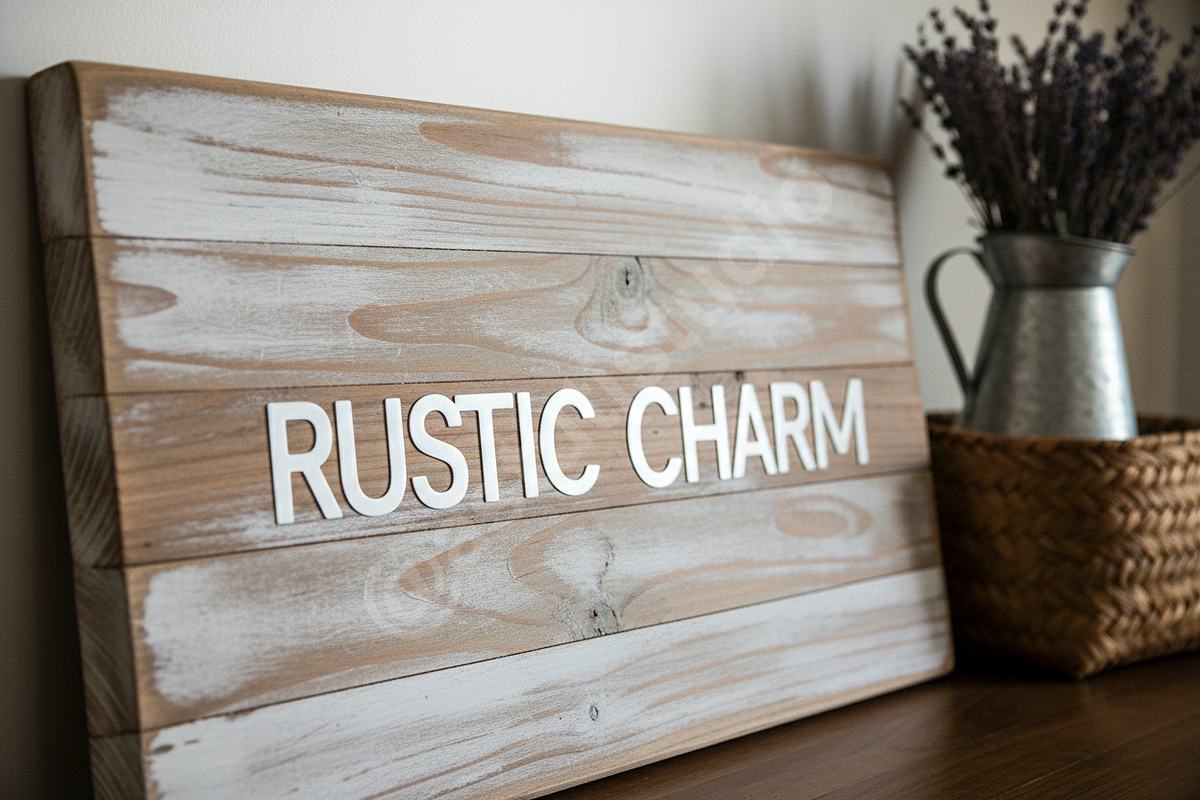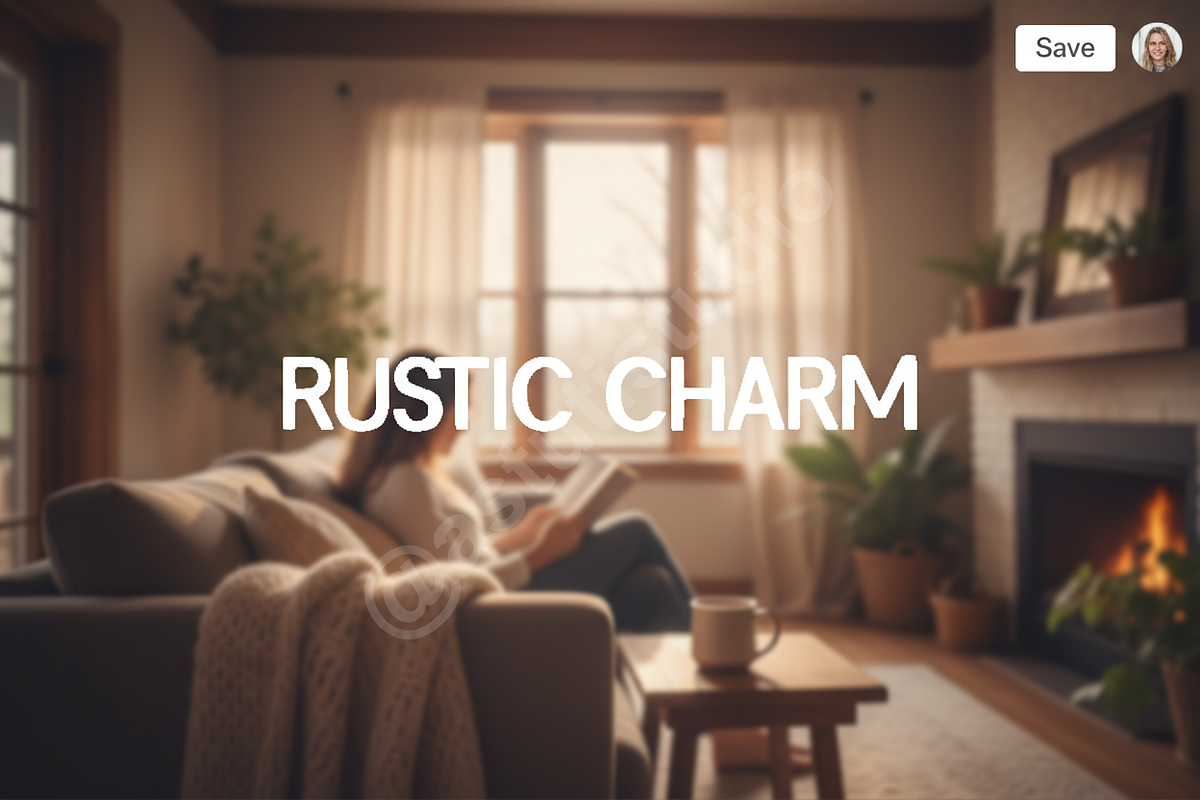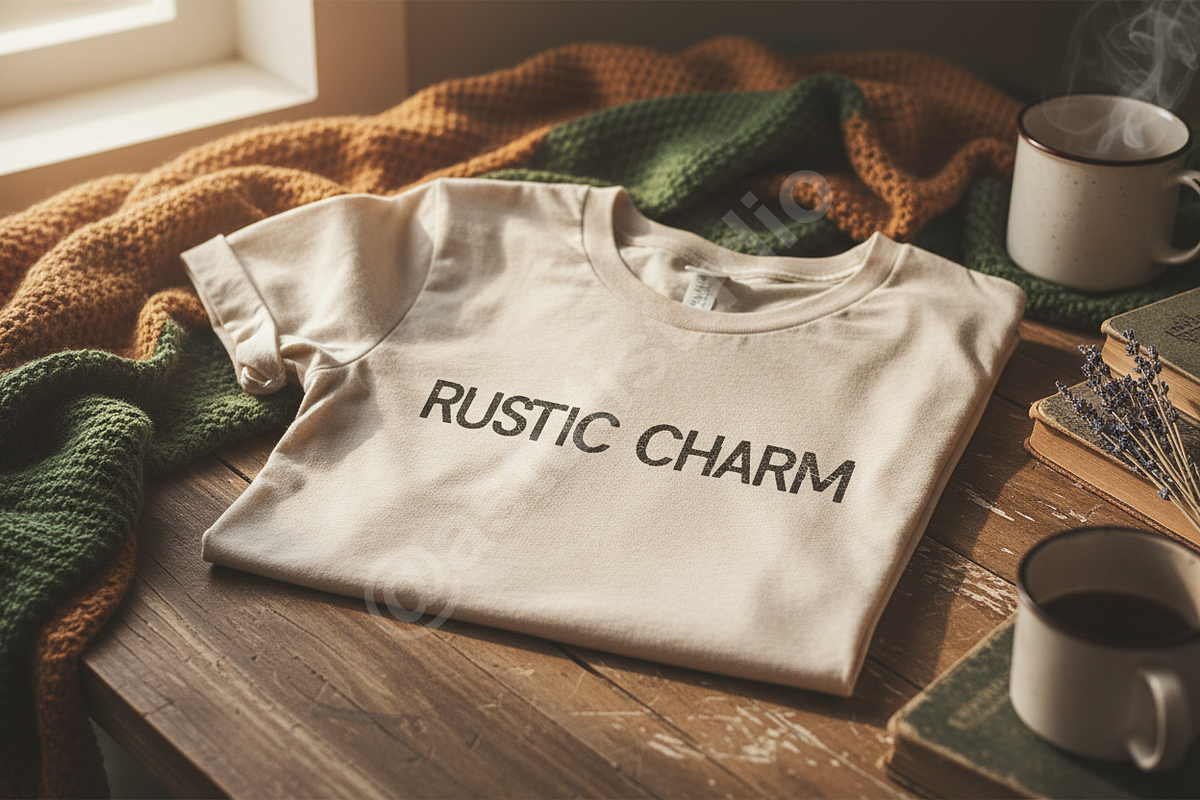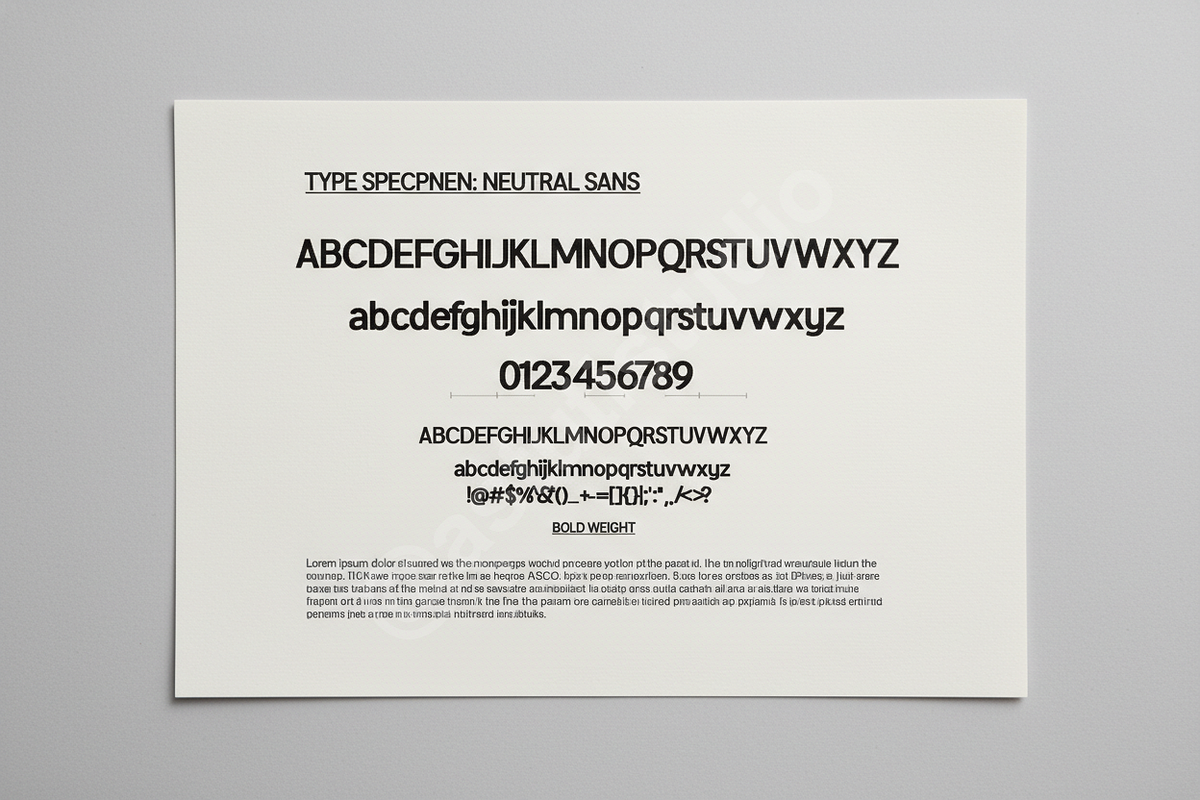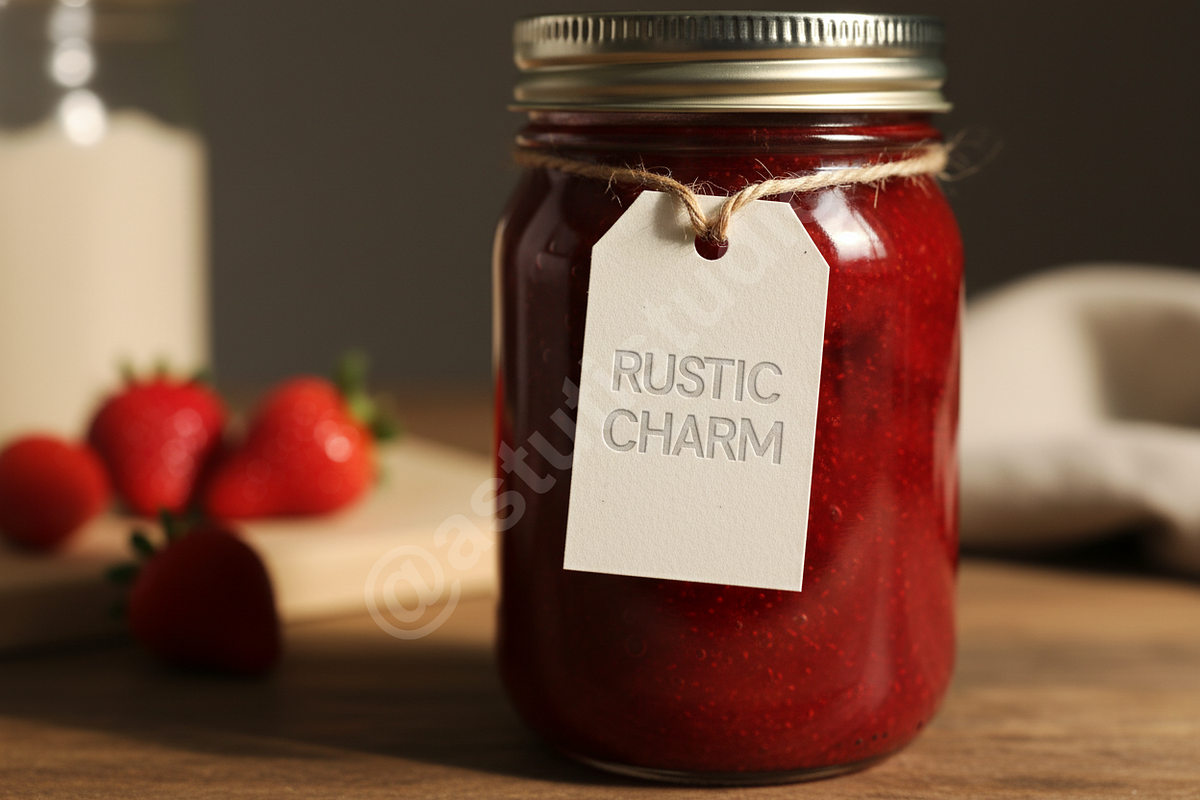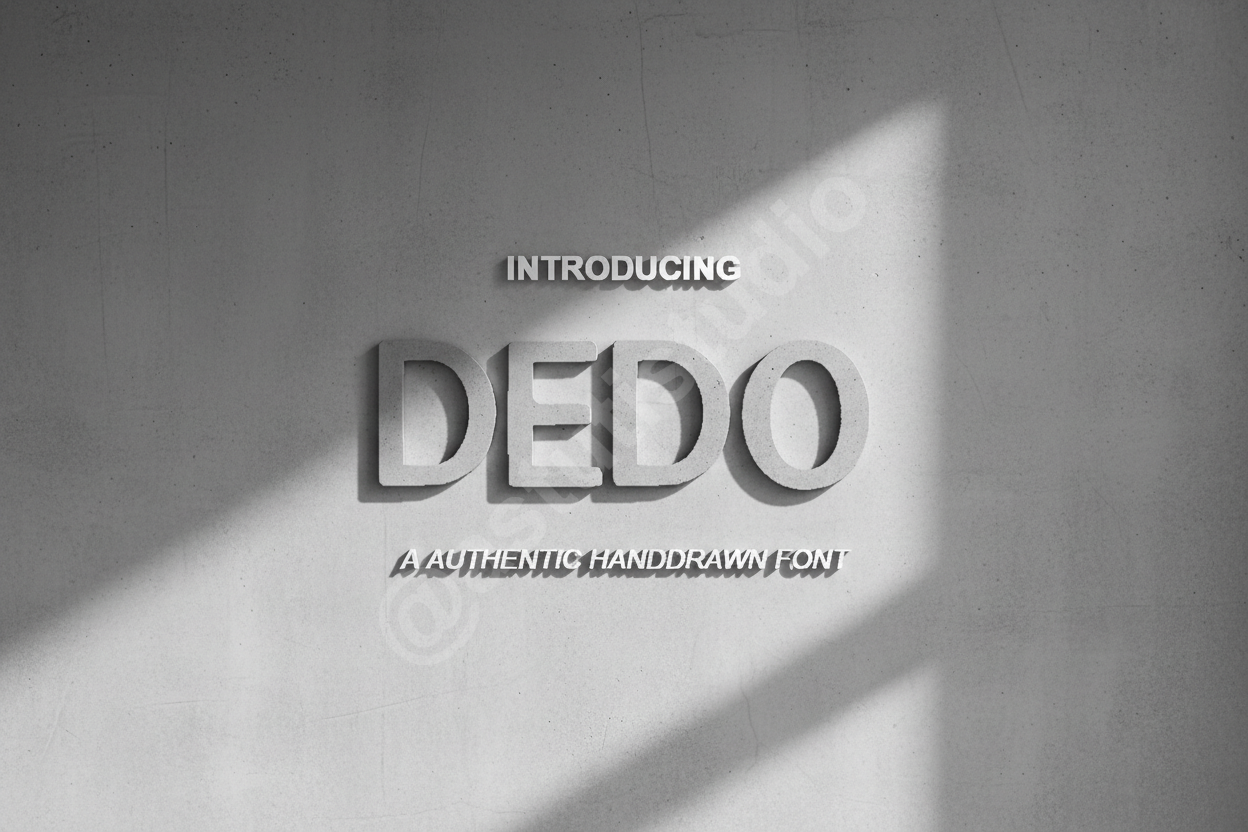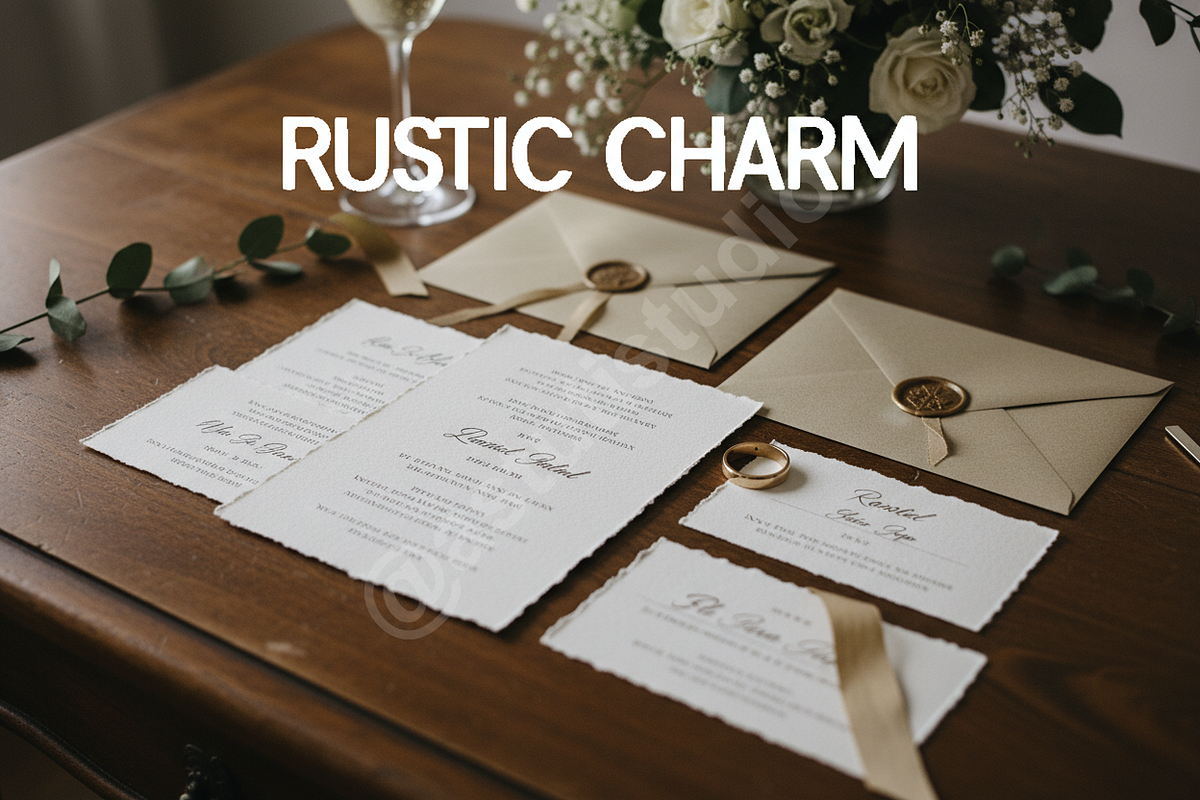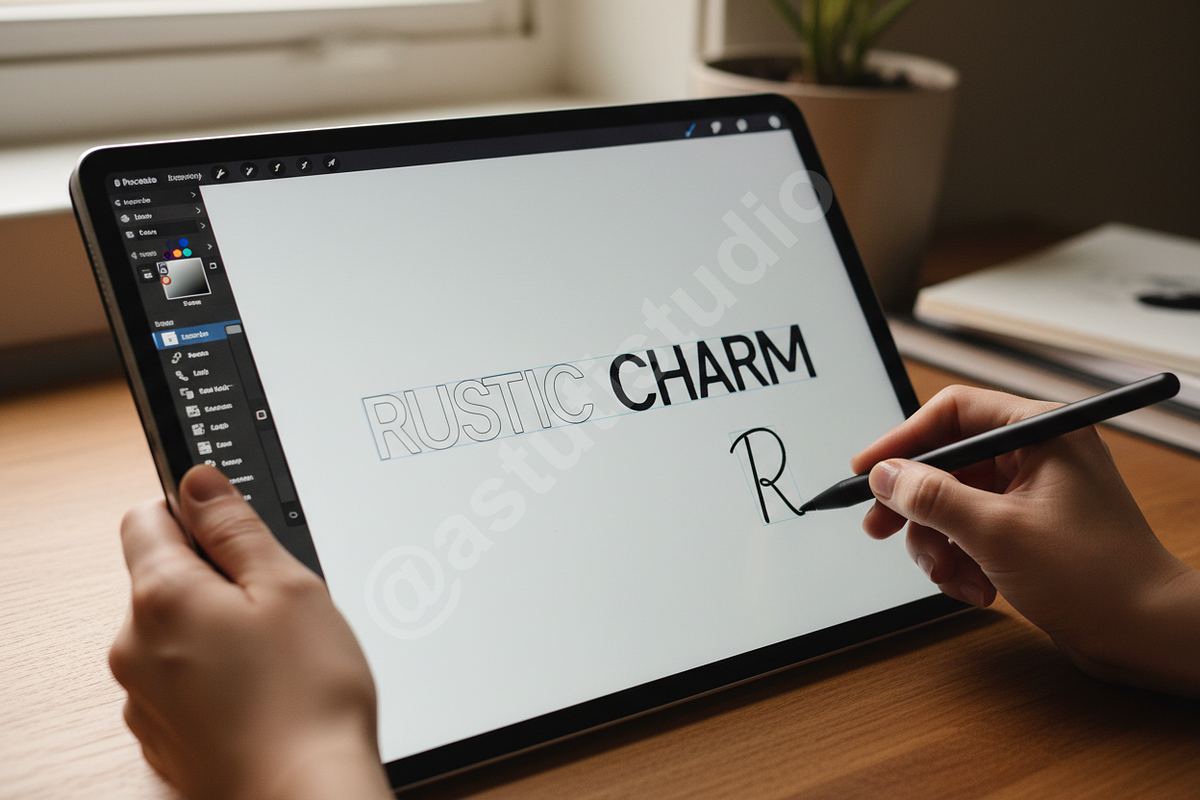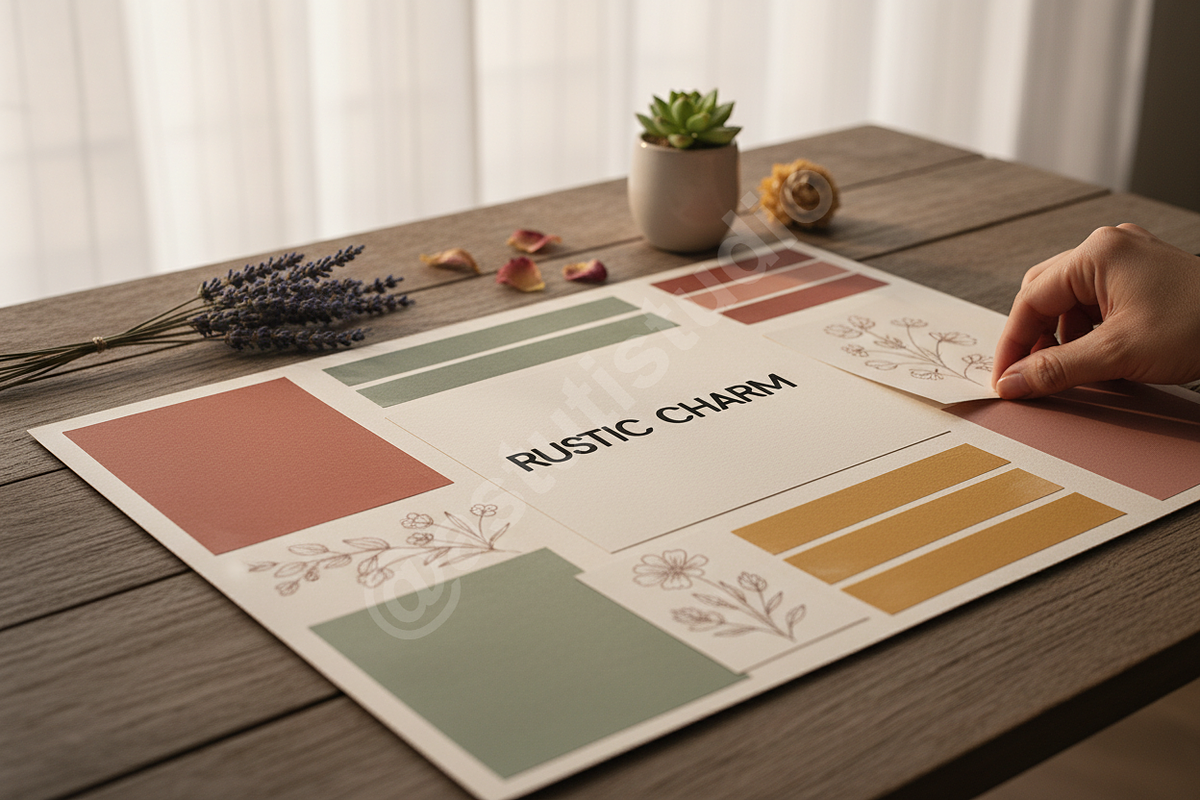
Dedo – Elegant Sans Serif Font for L
Introducing Dedo – a sophisticated sans serif typeface meticulously crafted for the discerning designer. Dedo embodies modern elegance, offering clean lines and a refined aesthetic that elevates any project. It is the quintessential choice for luxury branding, high-end editorial layouts, and impactful social media campaigns, providing a timeless yet contemporary feel.
- Modern & Elegant Sans Serif Design
- Optimized for Readability in Both Large and Small Sizes
- Perfect for Headlines, Logos, Branding, and Body Text
- Multiple Weights (Light, Regular, Bold) for Versatile Application
- Extensive Language Support for Global Projects